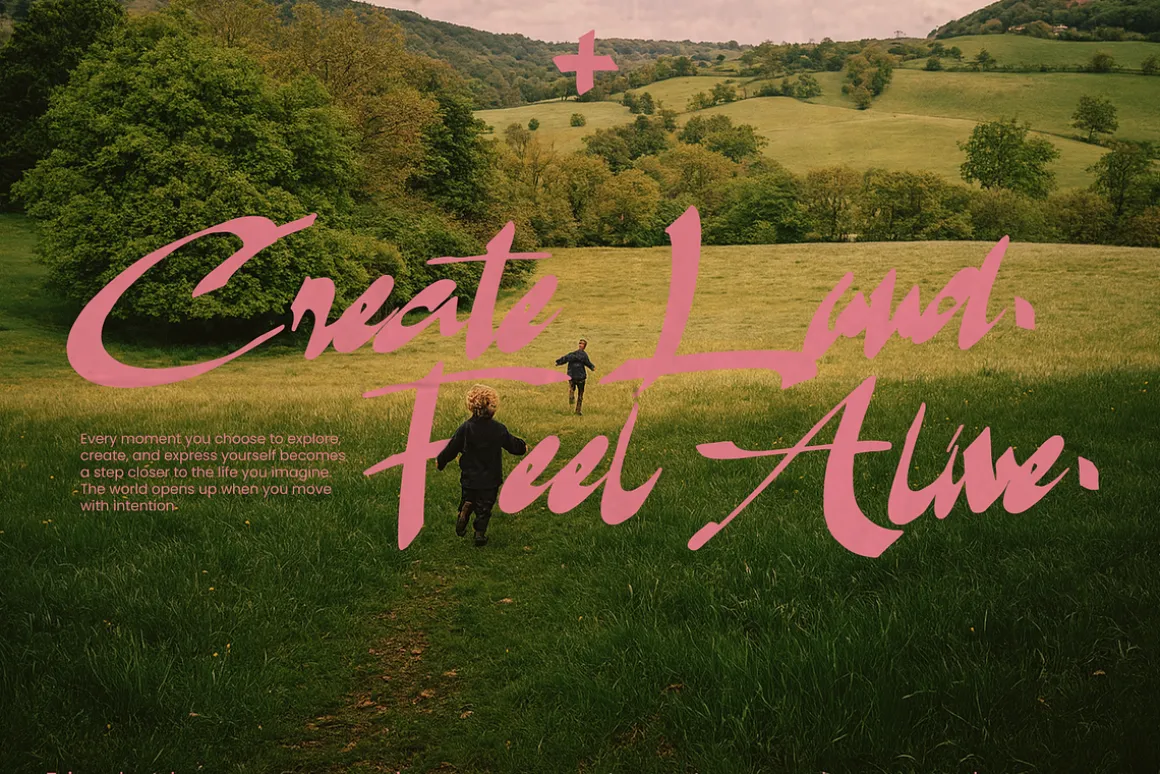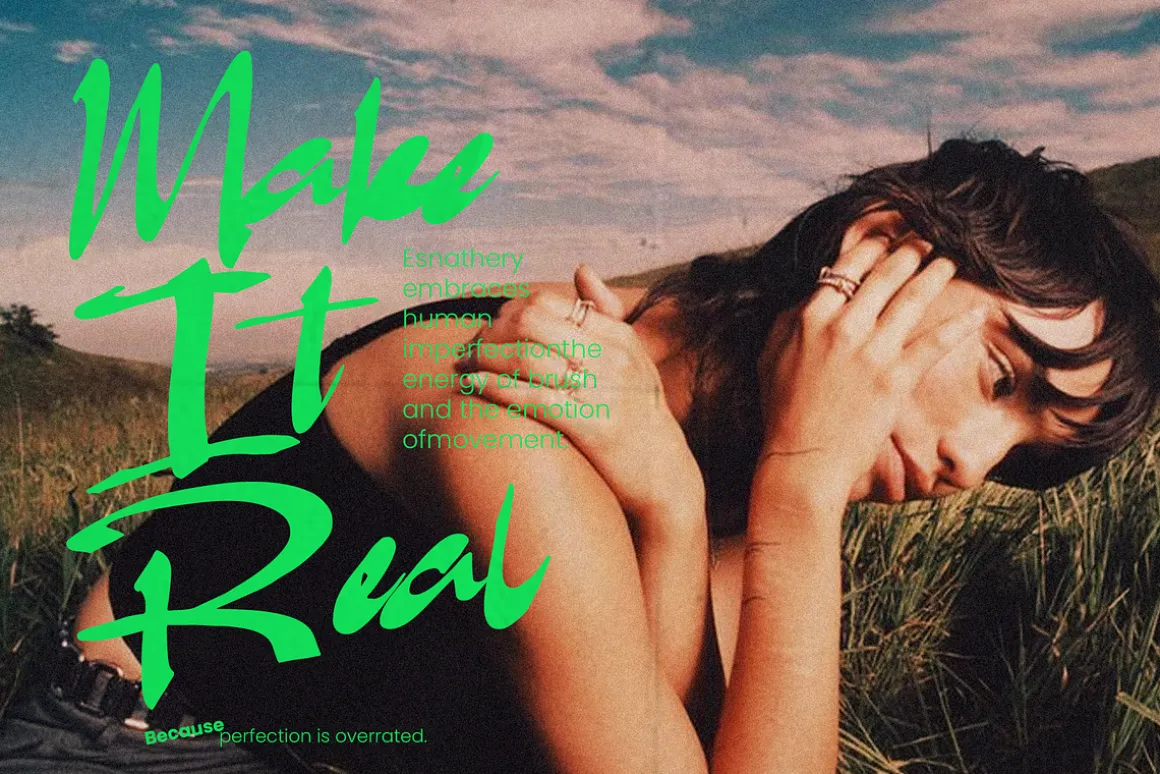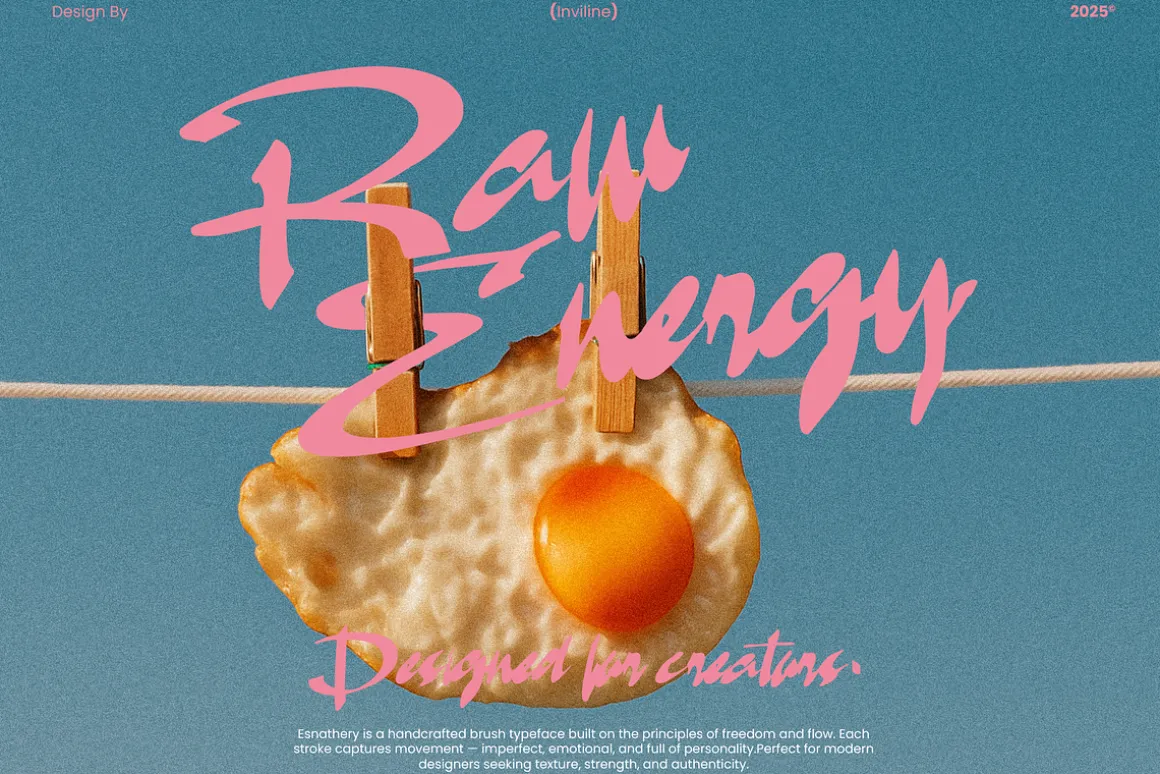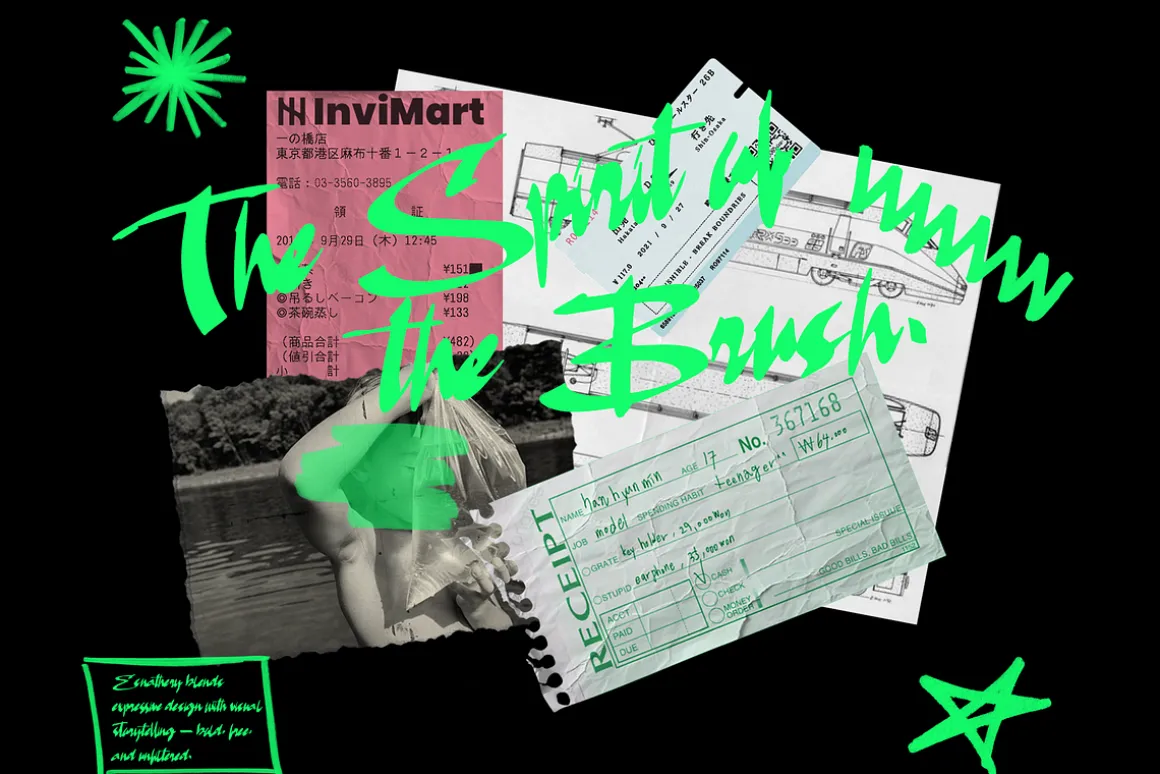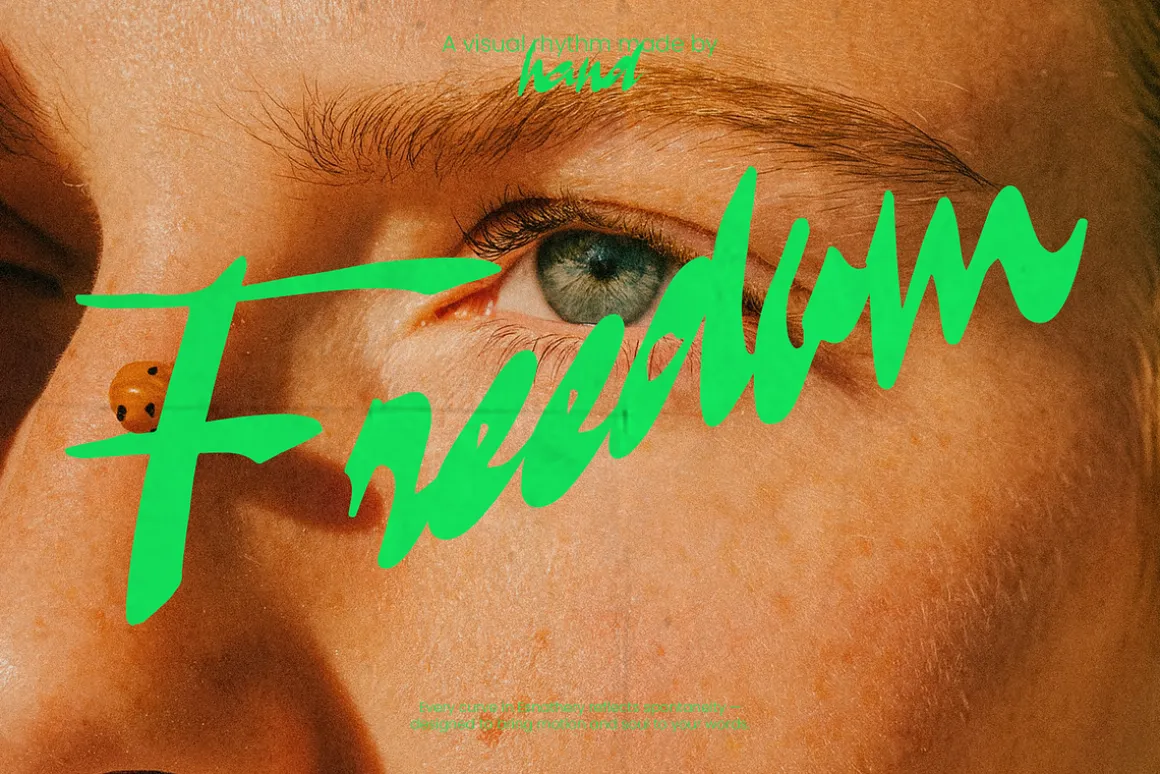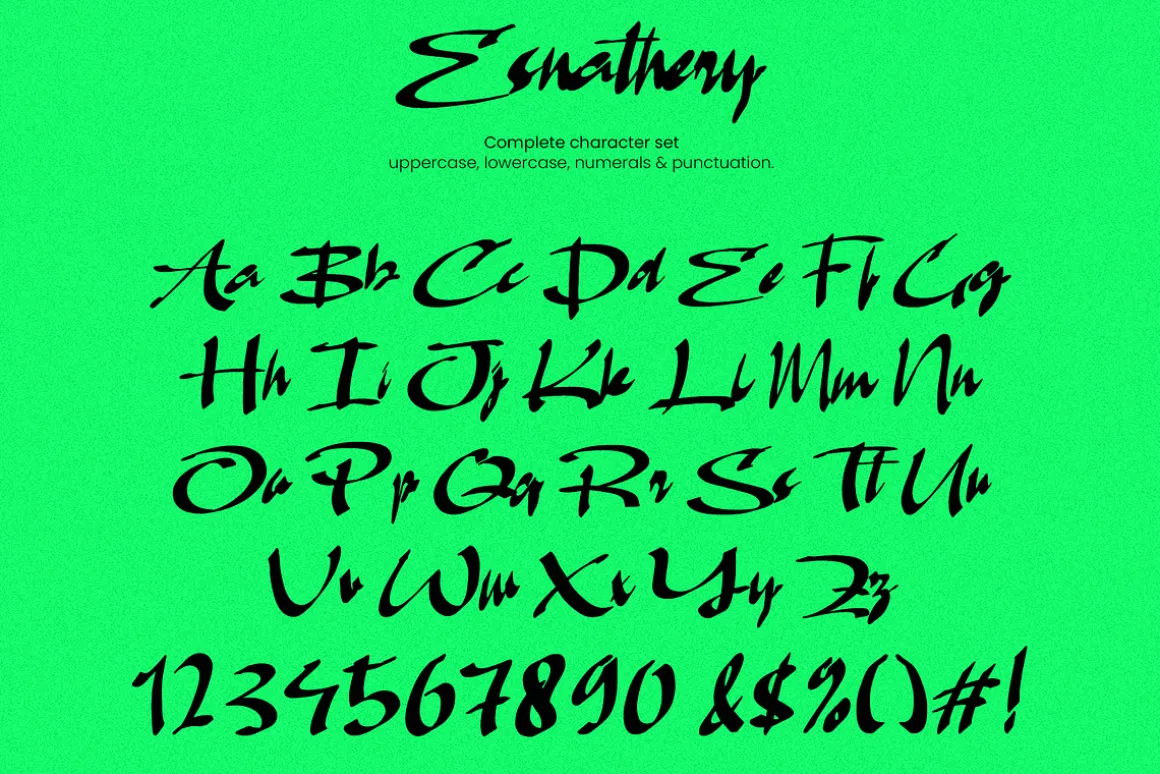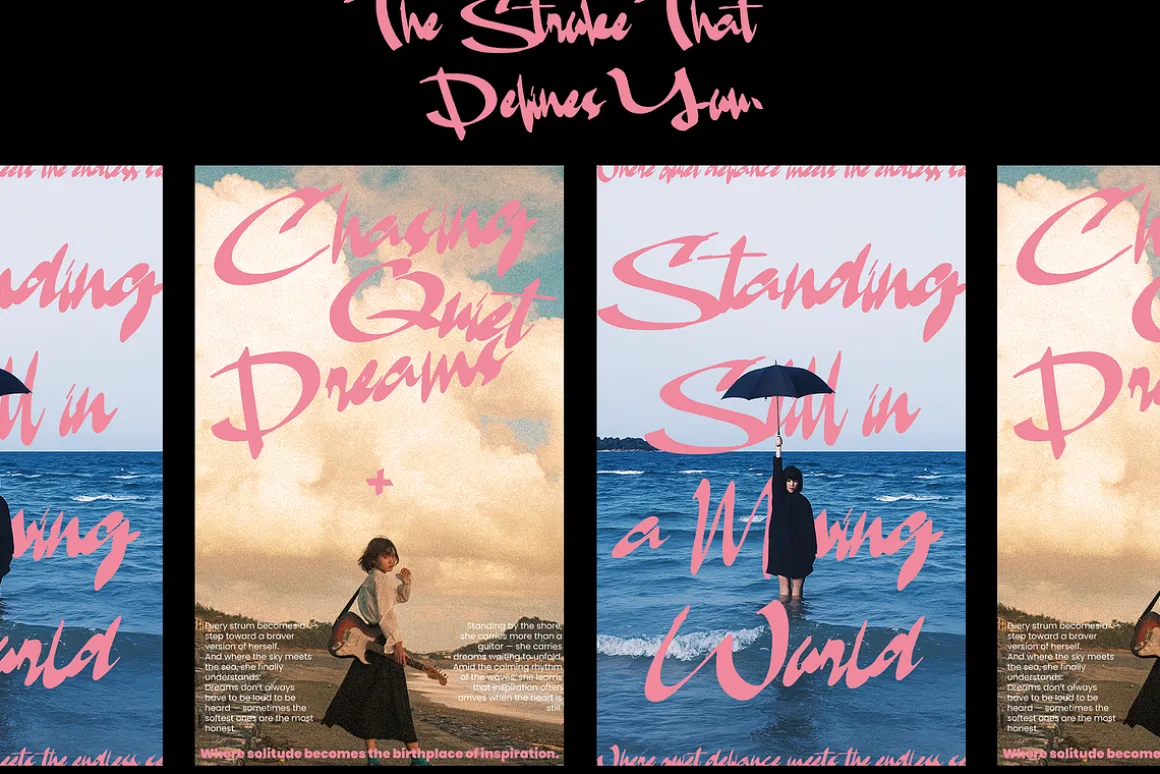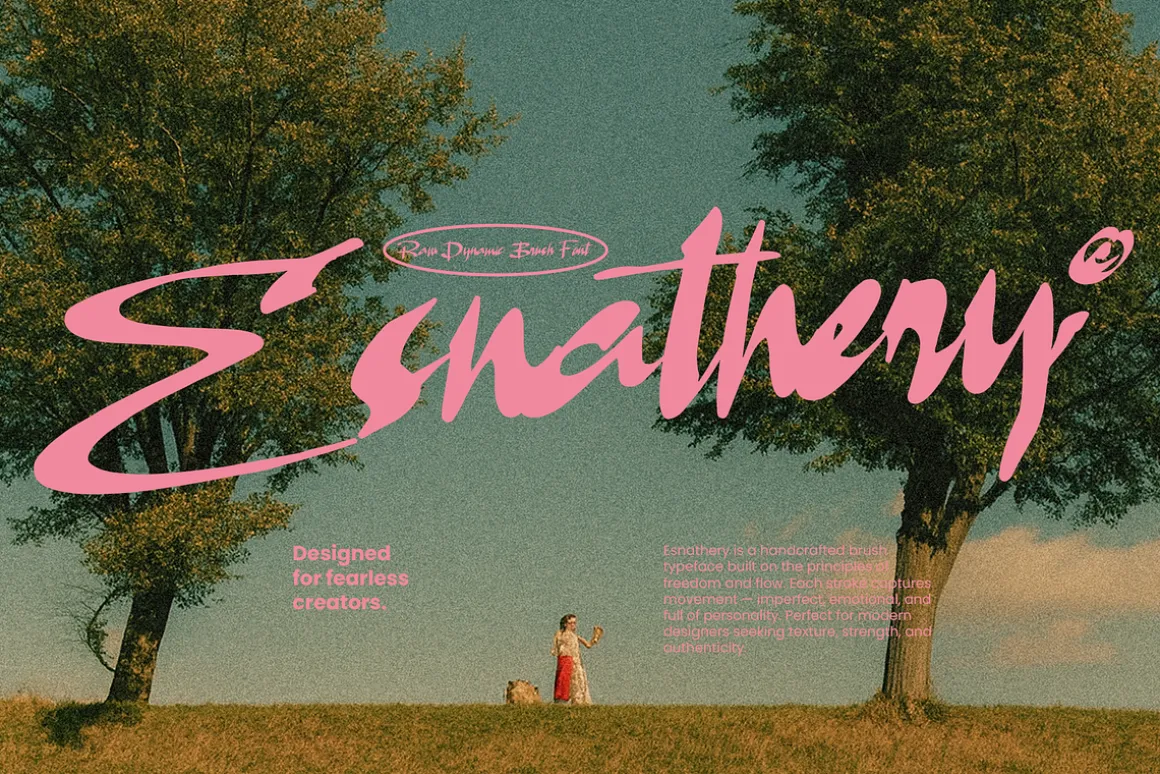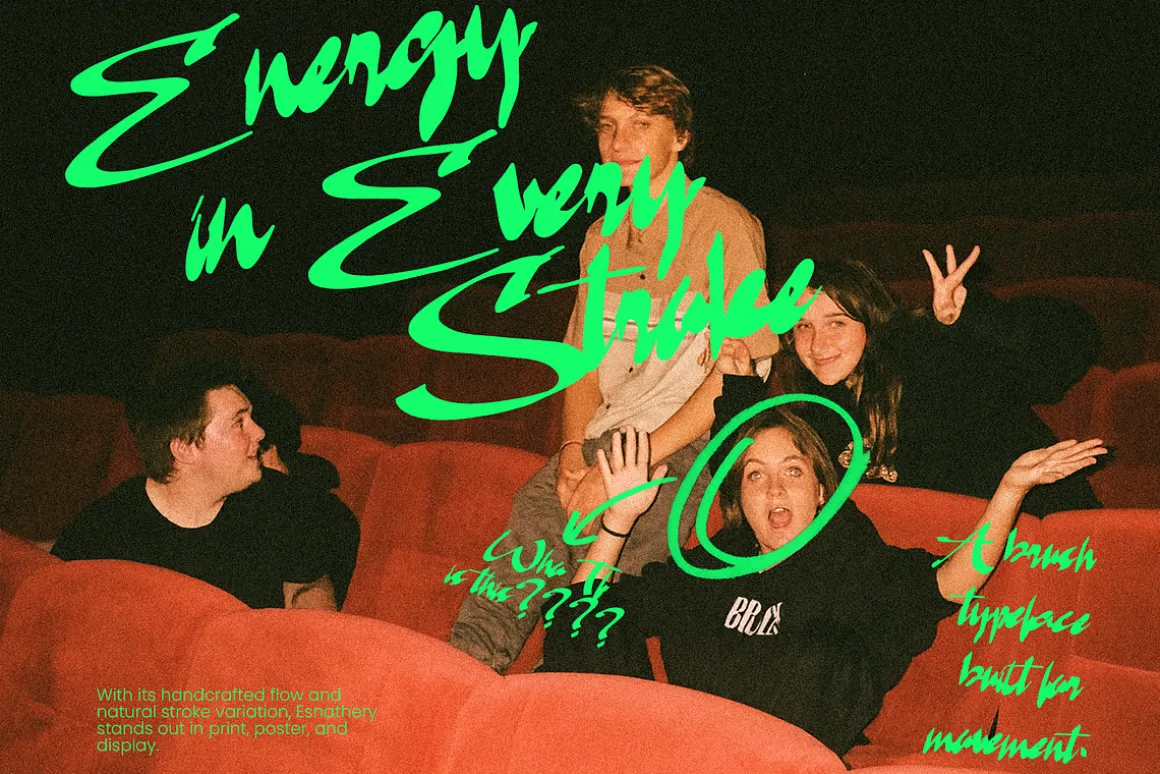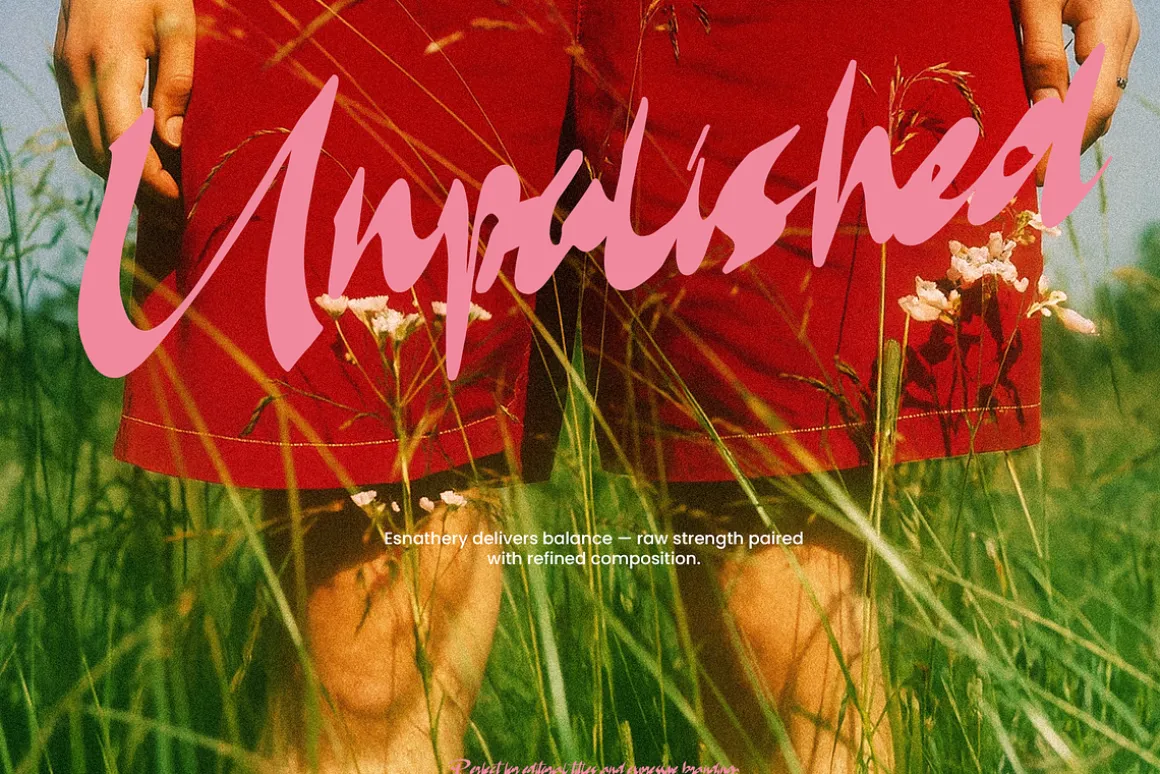
Esnathery – Raw Dynamic Brush Font
Esnathery is a handcrafted brush typeface designed to embody raw energy and emotional movement. Each stroke captures imperfection and personality—perfect for loud, expressive designs. From dynamic posters to energetic branding, Esnathery lets you create with fearless authenticity. Ideal for creators who value texture, motion, and an unpolished charm in their work.
- Uppercase & lowercase
- Numerals & punctuation
- Organic brush strokes
- Handcrafted texture
- Bold, imperfect aesthetic
- Editorial headlines
- Music or film posters
- Youth fashion branding
- Experimental layouts
- Creative writing visuals
- Social media graphics
- Zines and indie projects
- Energetic product packaging